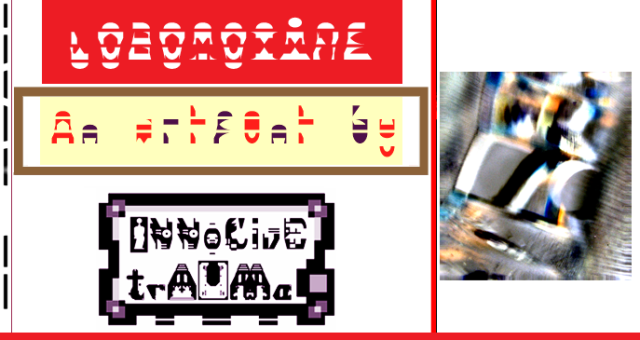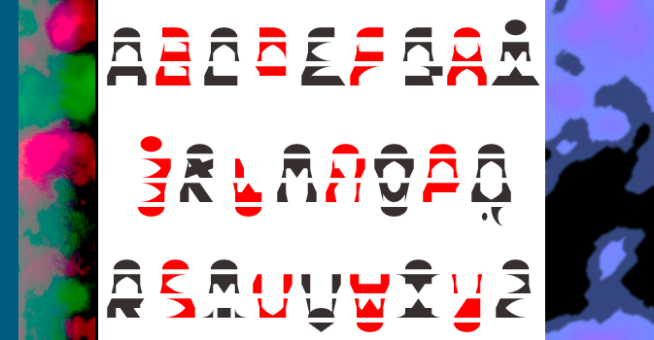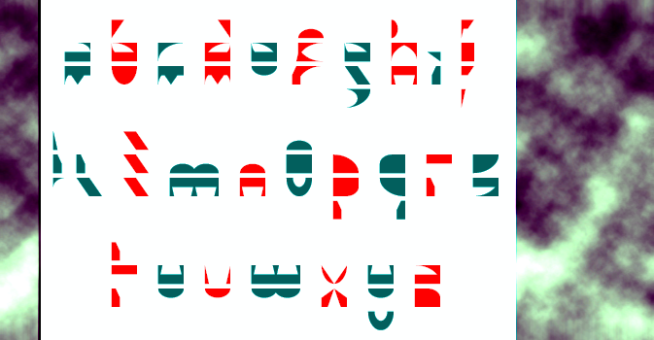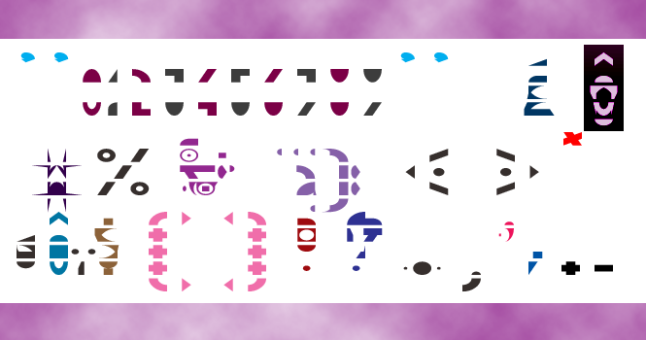
trAUMa 33 / Lobotoxine
"Lobotoxine", like all the "trAUMa" series, works at the frontier between Art & Type Design, Figuration & Abstraction, each font is a comprehensive world in which every glyph is a "living" entity. But put together they can produce your messages in the most accurate way.